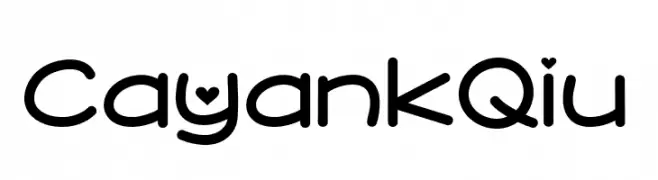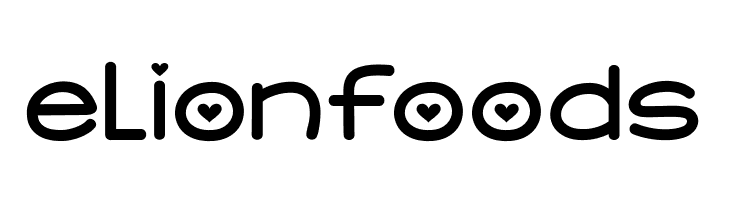
A playful, rounded font with geometric and organic shapes, offering a friendly and modern look.
A playful, rounded font with whimsical elements and consistent stroke width.